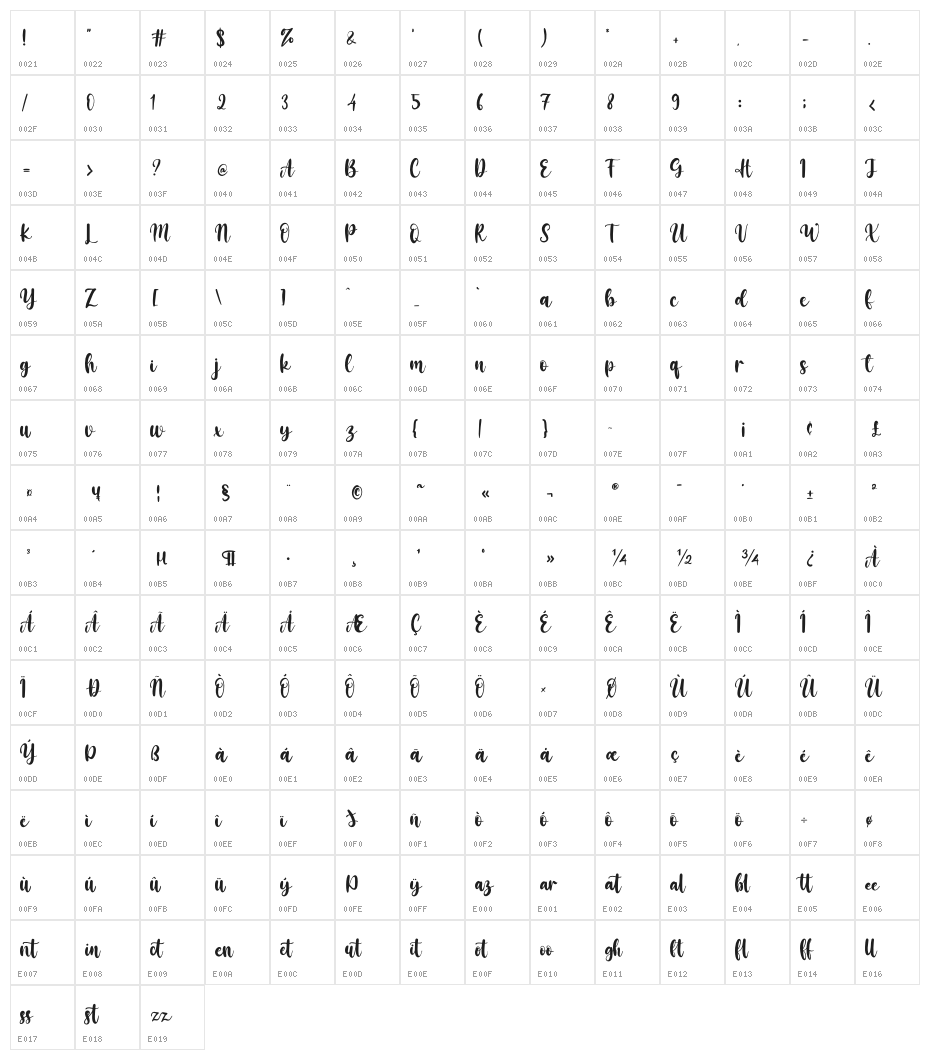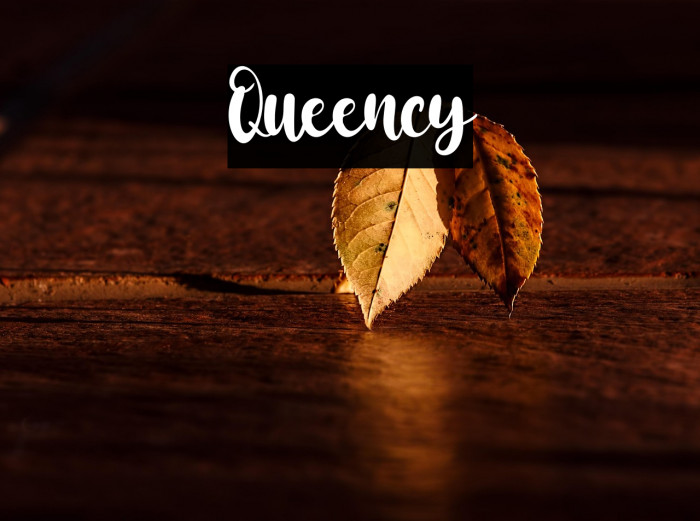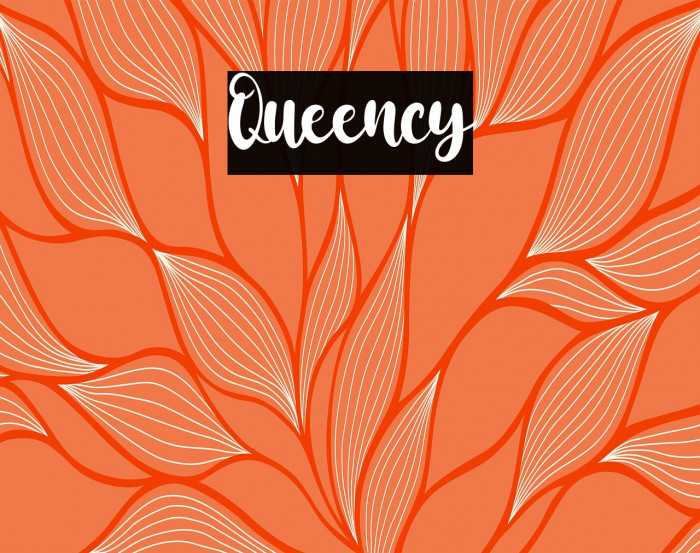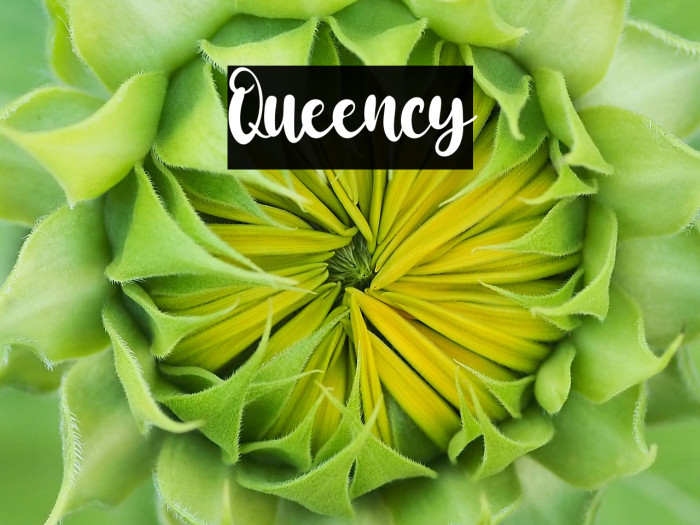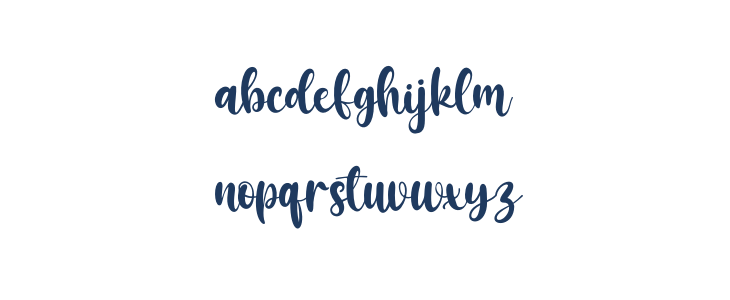
Queency Font
Queency Description
This font features a flowing, cursive style with elegant loops and swirls, giving it a sophisticated and artistic appearance. The letters are connected, creating a seamless and fluid look that is both decorative and legible. The uppercase characters are bold and prominent, while the lowercase letters maintain a consistent style with slightly less emphasis. Numbers and special characters are designed to match the overall aesthetic, ensuring a cohesive appearance across all text. The font's design is perfect for adding a touch of elegance and creativity to any project.
| Use Case | Logos, Headlines, Invitations |
| Proposed Projects | Ideal for wedding invitations, greeting cards, branding, and artistic projects. |